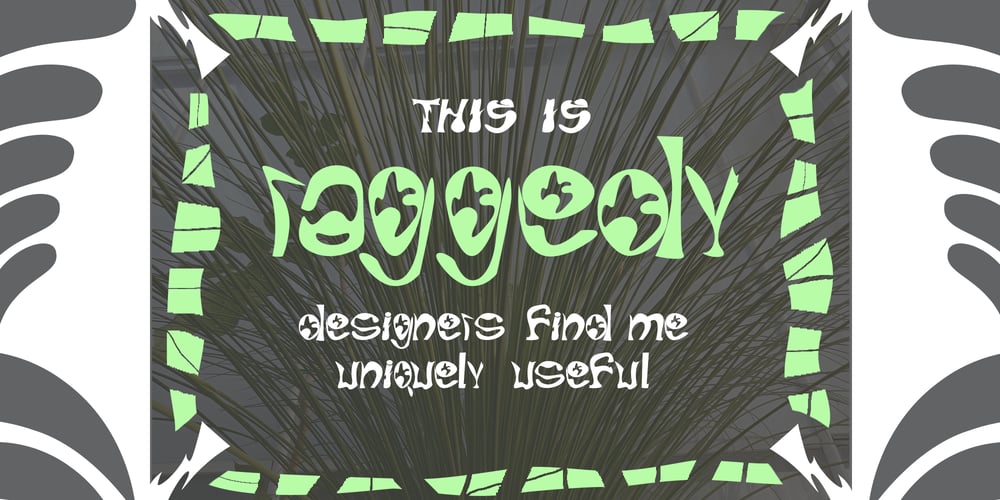
Raggedy
Raggedy font
Raggedy Font Family was designed by Mircea Boboc and published by Mircea Boboc. Raggedy contains 1 styles and family package options. Raggedy is a contemporary and lively font that exudes a notably impactful presence. What distinguishes it is the dynamic motion effect created through variations in rhythm, lengths, and lettering. This font proves especially beneficial for logo designers, urban musicians, and any projects embracing rebellion and avant-garde concepts.